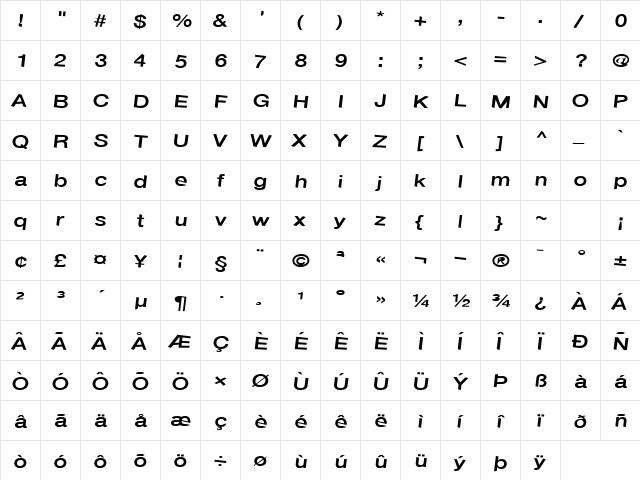
FontChordNew62 Regular
Design Context for FontChordNew62 Typeface
FontChordNew62 offers clean, dependable letterforms without strong stylistic allegiance, making it a practical choice for designers who need flexibility.
Pro Tip: Use FontChordNew62 in both headline and body roles to test its range before committing to a single application.